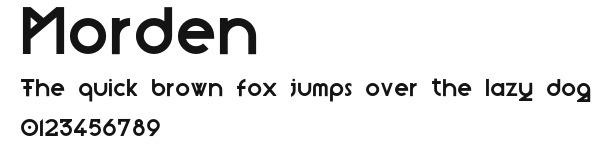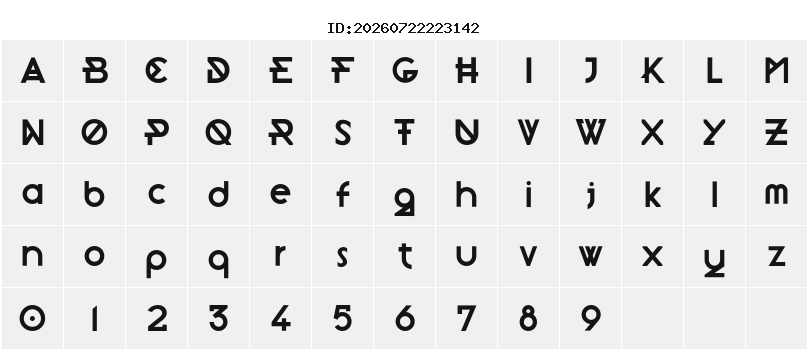
Morden.otf
• Font Name: Morden
• Designer: Andrea Buttieri
About Morden.otf
Morden.otf is a modern, elegant sans-serif font designed for ultimate readability and visual harmony. Perfect for branding, headlines, web design, and print materials.